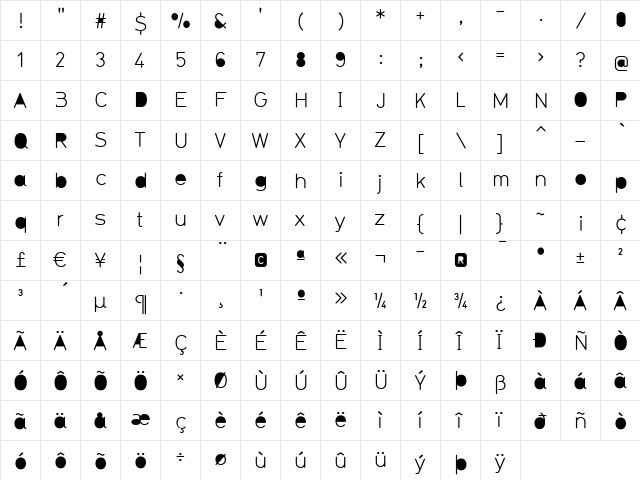
Typ1451 Regular
Design Context for Typ1451 Typeface
Typ1451 offers clean, dependable letterforms without strong stylistic allegiance, making it a practical choice for designers who need flexibility.